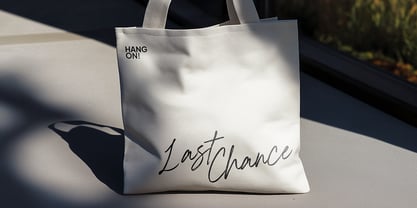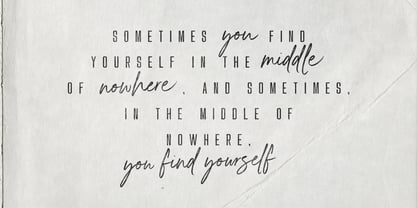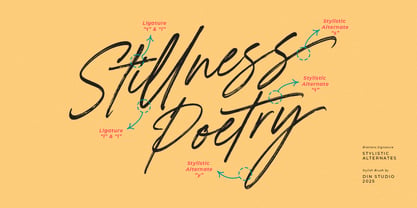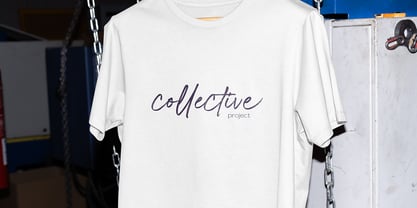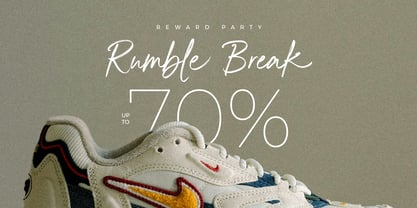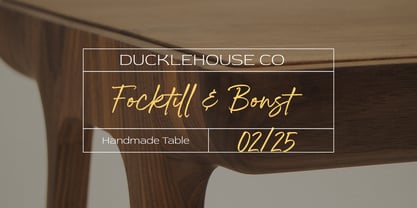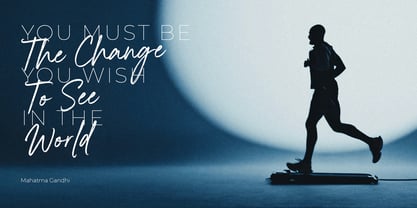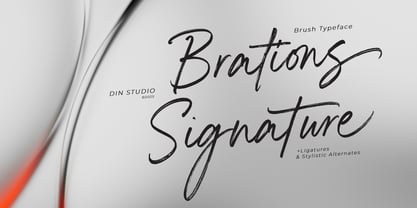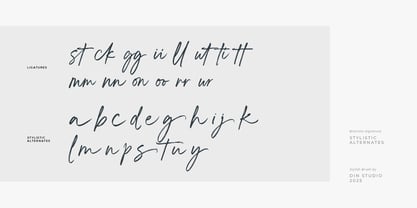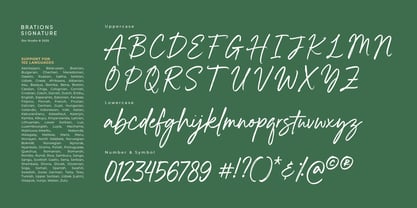
Brations Signature
by Din Studio
The Brations Signature Font Family was designed by Donis Miftahudin and published by Din Studio. Brations Signature contains 1 styles. More about this family
Brations Signature is a brush script font designed to capture the natural flow and charm of authentic handwriting. Crafted with smooth, expressive strokes, this font beautifully mimics the texture and motion of real brush lettering. Each letter in Brations Signature is created with attention to detail—featuring fluid lines, natural curves, and dynamic movement that reflect the beauty of hand-painted brushwork. The result is a typeface that feels organic, stylish, and effortlessly modern. In addition, enjoy the features here. Features: Alternates Ligatures Multilingual Supports PUA Encoded Numerals and Punctuations Brations Signature fits in branding, quotes, name cards, apparels, logos, posters, and many more designs. Find out more ways to use this font by taking a look at the font preview. Thanks for purchasing our fonts. Hopefully, you have a great time using our font. Feel free to contact us anytime for further information or when you have trouble with the font. Thanks a lot and happy designing.
Designers: Donis Miftahudin
Foundry: Din Studio
Din Studio is a type design studio founded by Donis Miftahudin in 2017. The studio focuses on creating unique and visually appealing script and display fonts that stand out in the industry. Donis Miftahudin is a well-known type designer in the industry and has created several popular fonts under the Din Studio brand.The fonts designed by Din Studio are characterized by their distinct style and aesthetic appeal. The studio's designs often incorporate unique elements, such as intricate ligatures and swashes, to create fonts that are not only visually stunning but also highly functional. The studio's fonts are often used in a variety of applications, including branding, advertising, and editorial design.Din Studio's fonts are highly regarded in the design community and have received recognition from industry publications and organizations. The studio has been featured in several design blogs and magazines, and its fonts have won awards at prestigious design competitions.One of the hallmarks of Din Studio's work is its commitment to innovation and experimentation. The studio is constantly exploring new techniques and approaches to type design, pushing the boundaries of what is possible in the field. This dedication to innovation has helped Din Studio establish itself as one of the most exciting and influential type design studios in the industry.Overall, Din Studio is a dynamic and innovative type design studio that is pushing the boundaries of what is possible in the field. With its focus on unique and visually appealing script and display fonts, the studio is poised to continue making a significant impact in the design community for years to come.